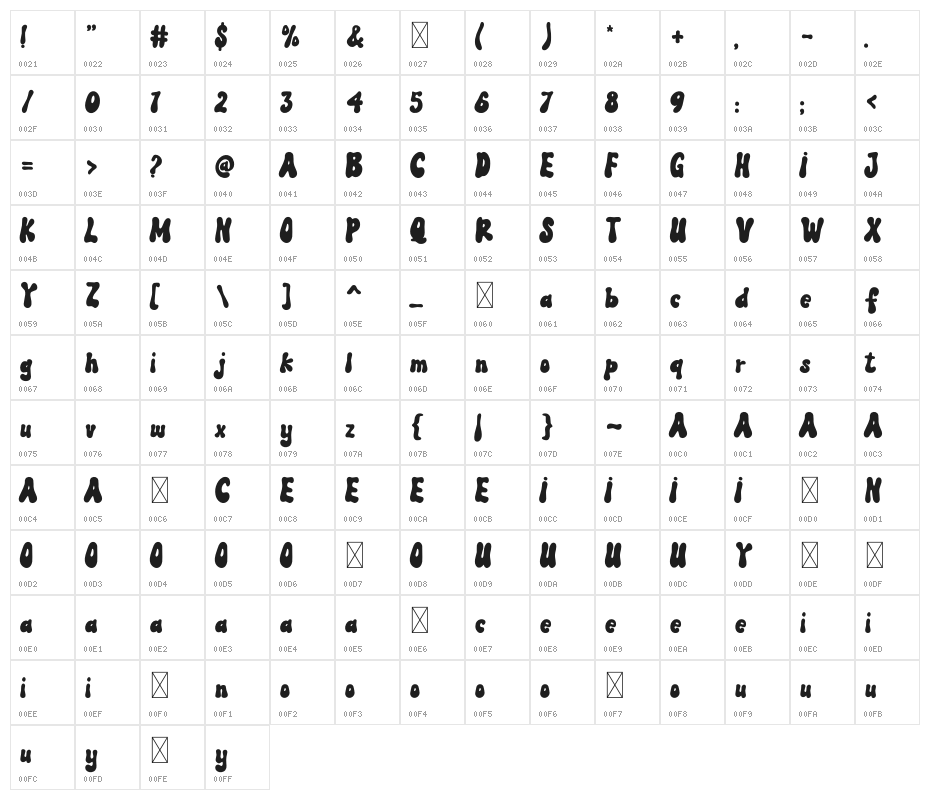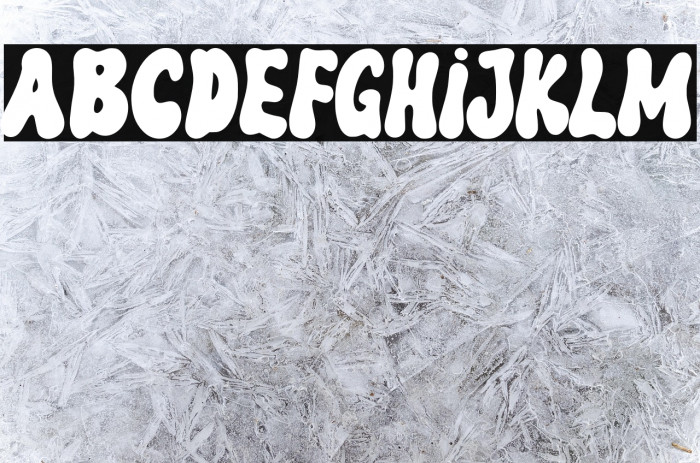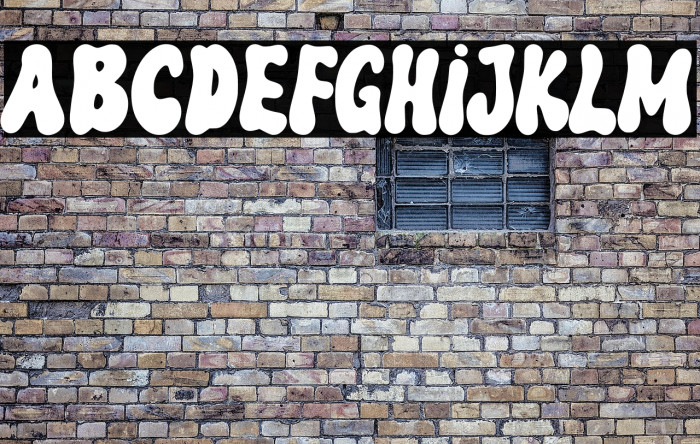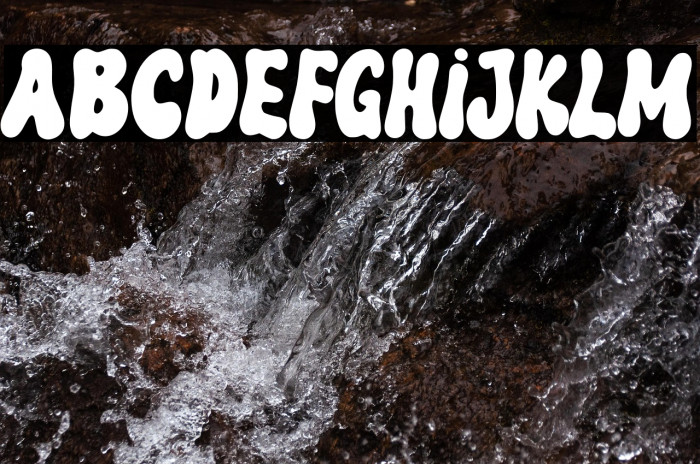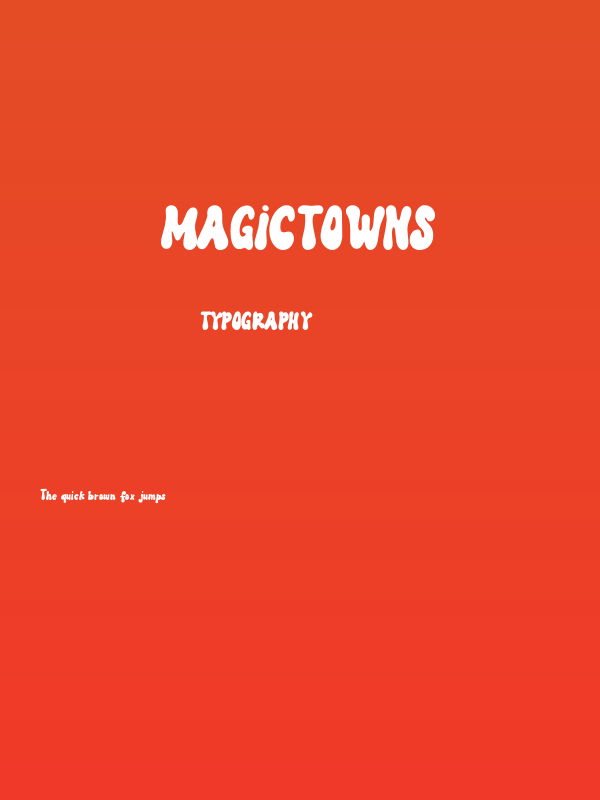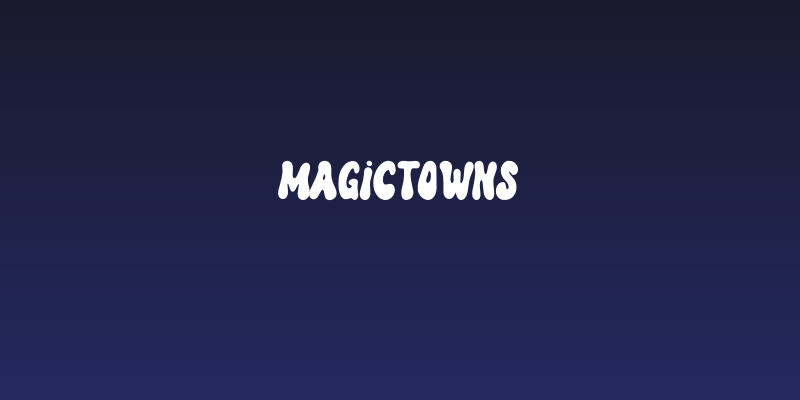
MAGICTOWNS Font
MAGICTOWNS Description
This playful and bold font features thick, rounded characters with a whimsical, bubbly appearance. The letters are heavily weighted, giving them a strong presence, while the rounded edges add a friendly and approachable feel. The font maintains a consistent thickness throughout, with minimal contrast in stroke width, contributing to its cohesive and solid look. The characters are closely spaced, enhancing the compact and dense appearance. This style is reminiscent of retro or vintage designs, making it ideal for projects that require a fun and lively touch.
| Proposed Projects | Ideal for children's books, playful branding, party invitations, and retro-themed designs. |